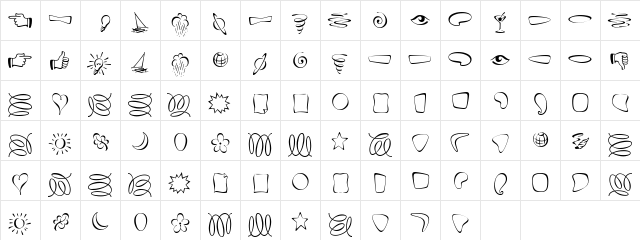
Fontesque Ornaments
| Style | Ornaments |
Design Context for Fontesque Typeface
Fontesque brings ornamental detail and strong personality to headlines and identities, where visual impact matters more than quiet functionality.
Font Pairing: Pair with a clean neutral sans-serif for body copy to let Fontesque's character lead without overwhelming the composition.
Pro Tip: Treat Fontesque as the centrepiece of your typographic hierarchy. One strong heading set in a decorative face can carry an entire layout.